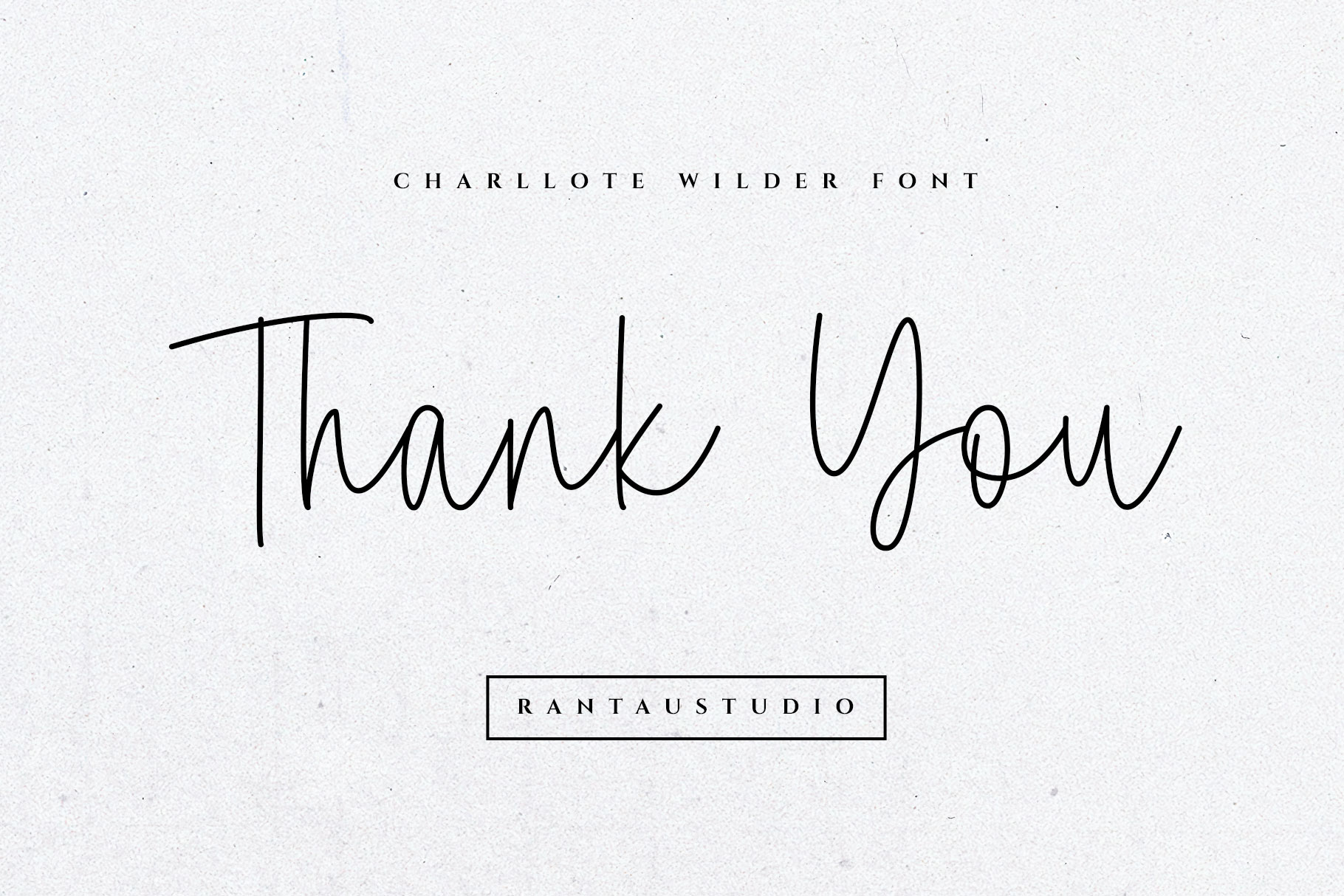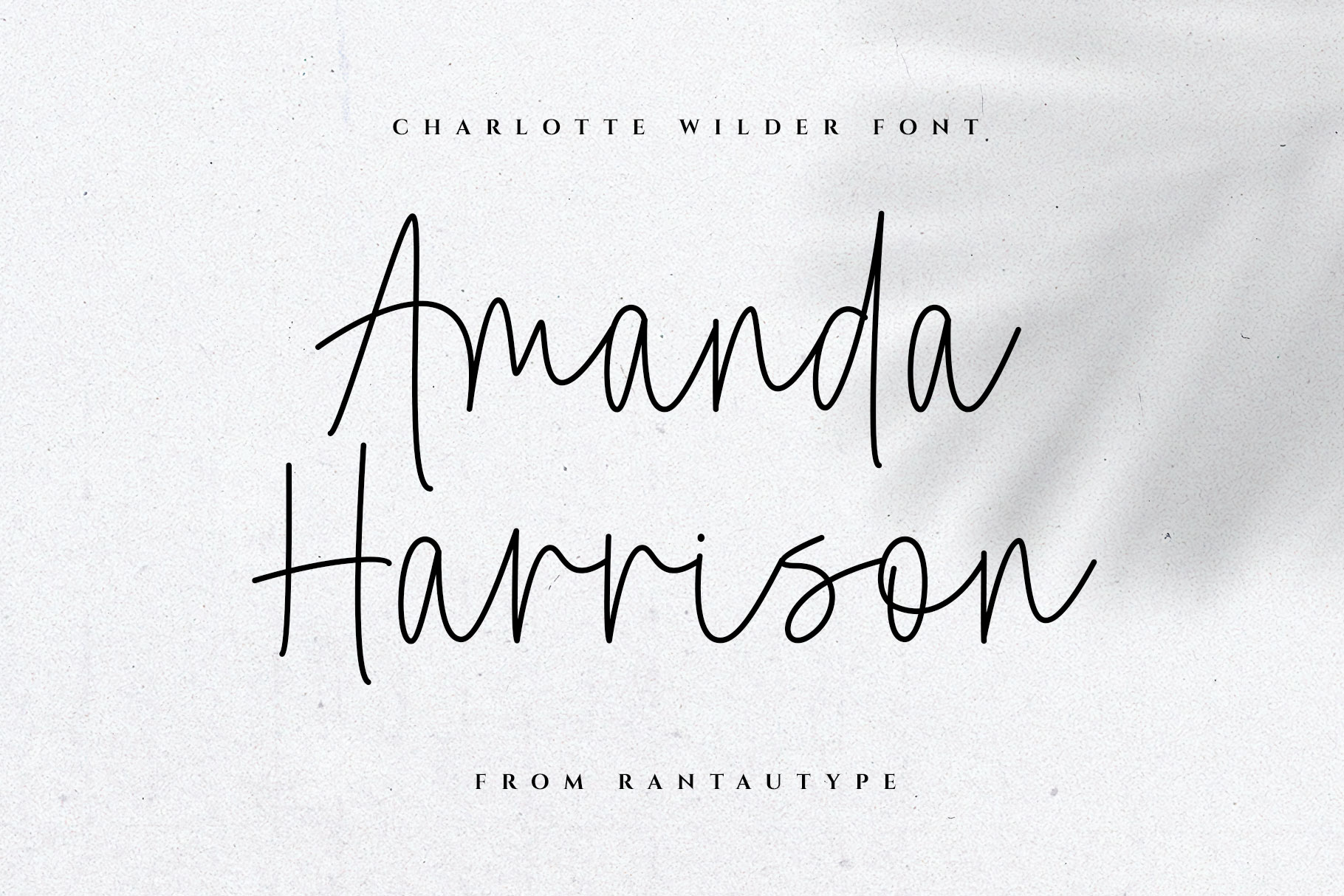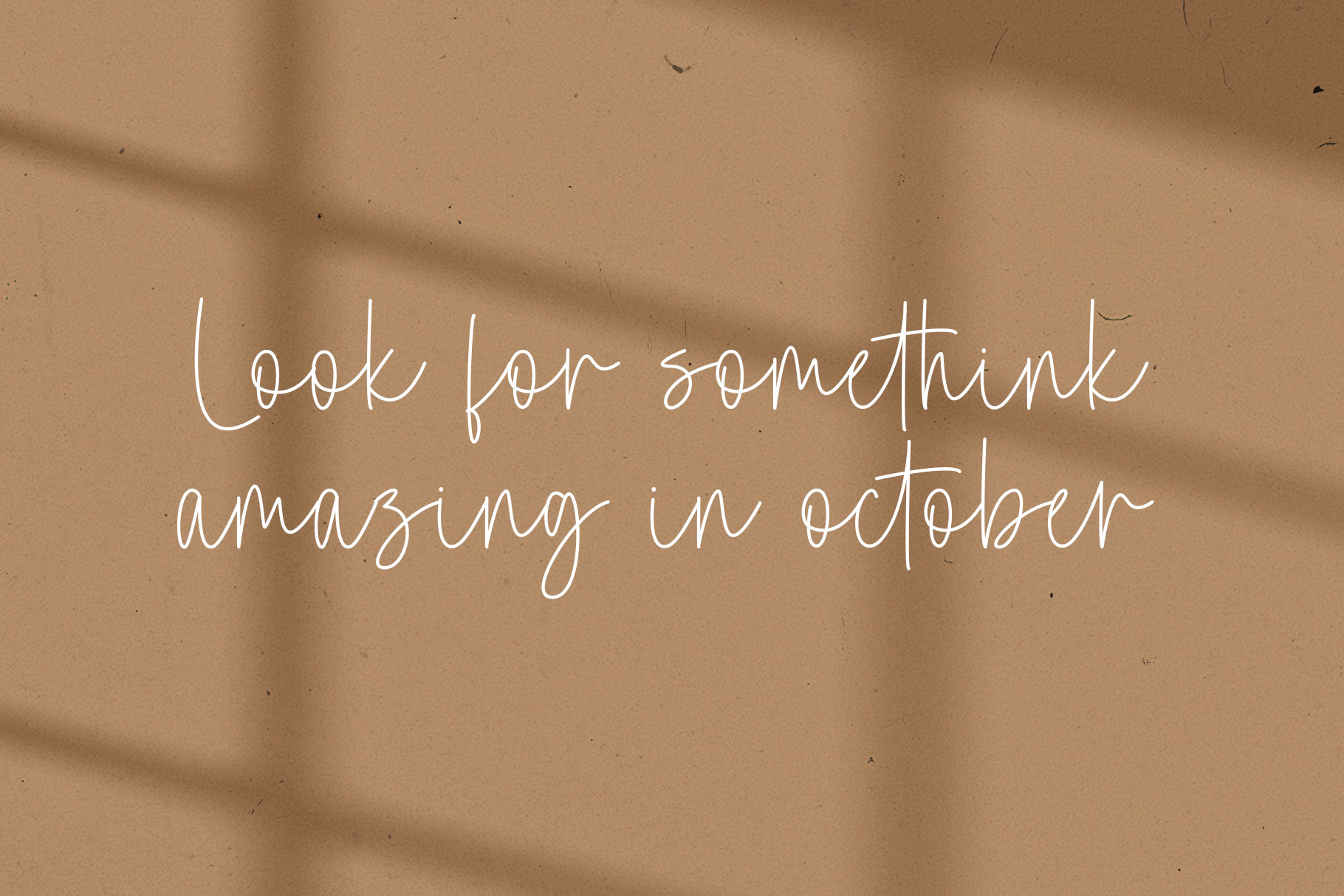
Charlotte Wilder Casual Monoline Font
Charlotte wilder is casual monoline font which can be interpreted professional with stylish and soft curve. We keep this font looks modern, minimalist, elegant, readable, stylish, catchy and easy to use. Charlotte wilder come with ligature and multilingual support.
Charlotte wilder is a beautiful choice for any creative endeavor, chic, lifestyle design such as logos, title, watermark on photography, cover, branding, display and magazine, wedding event, quotes, album cover, business card and many other design project. Charlotte wilder here to make your work to high level!!!